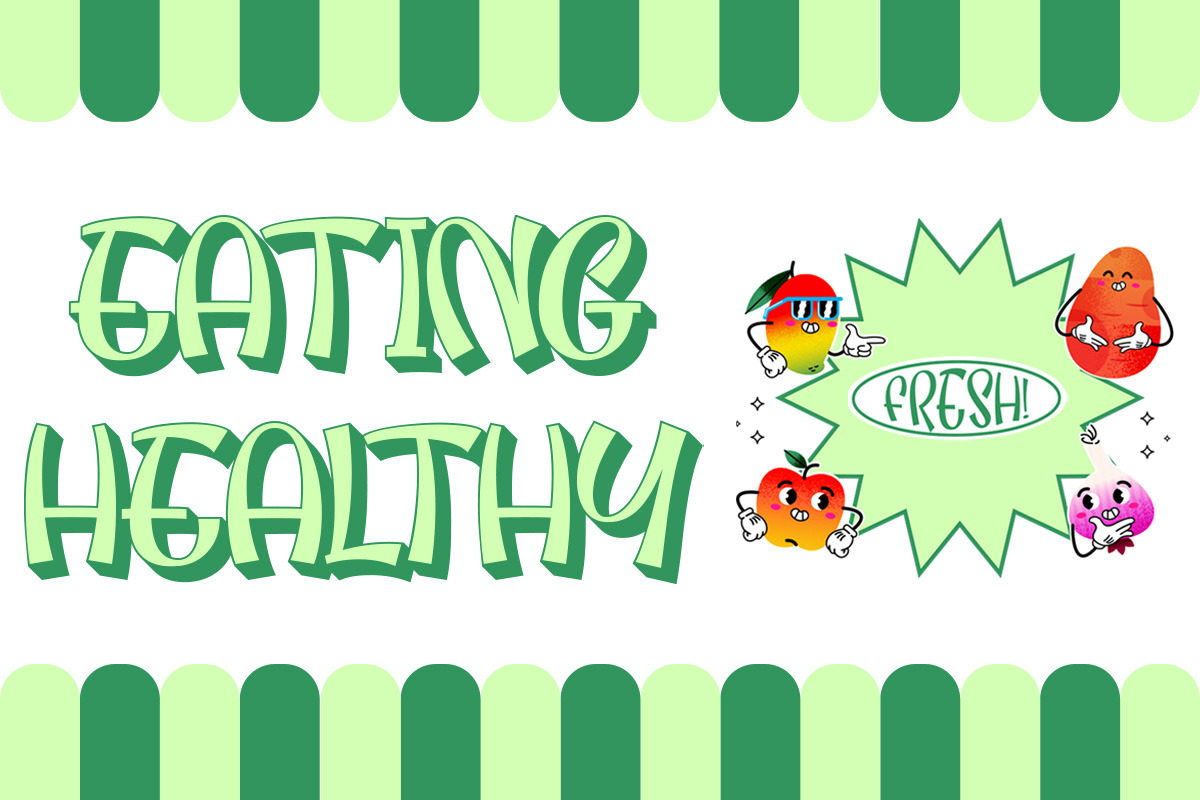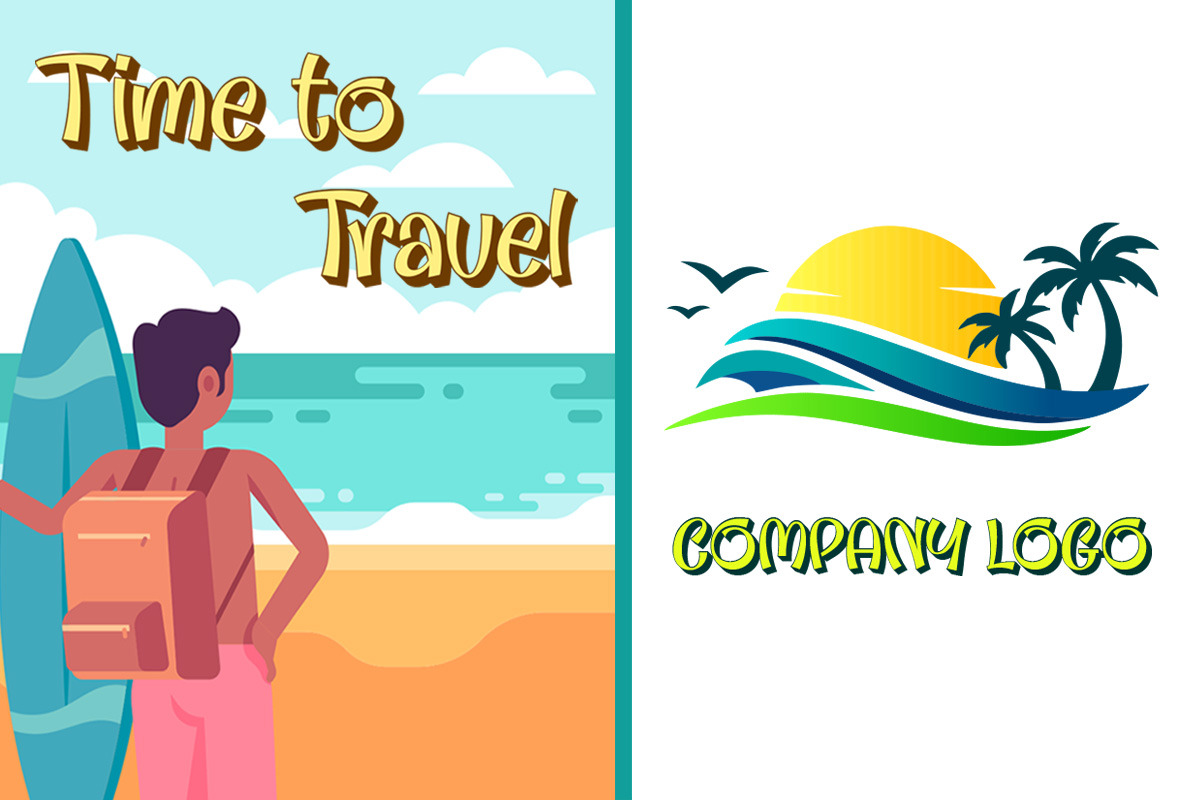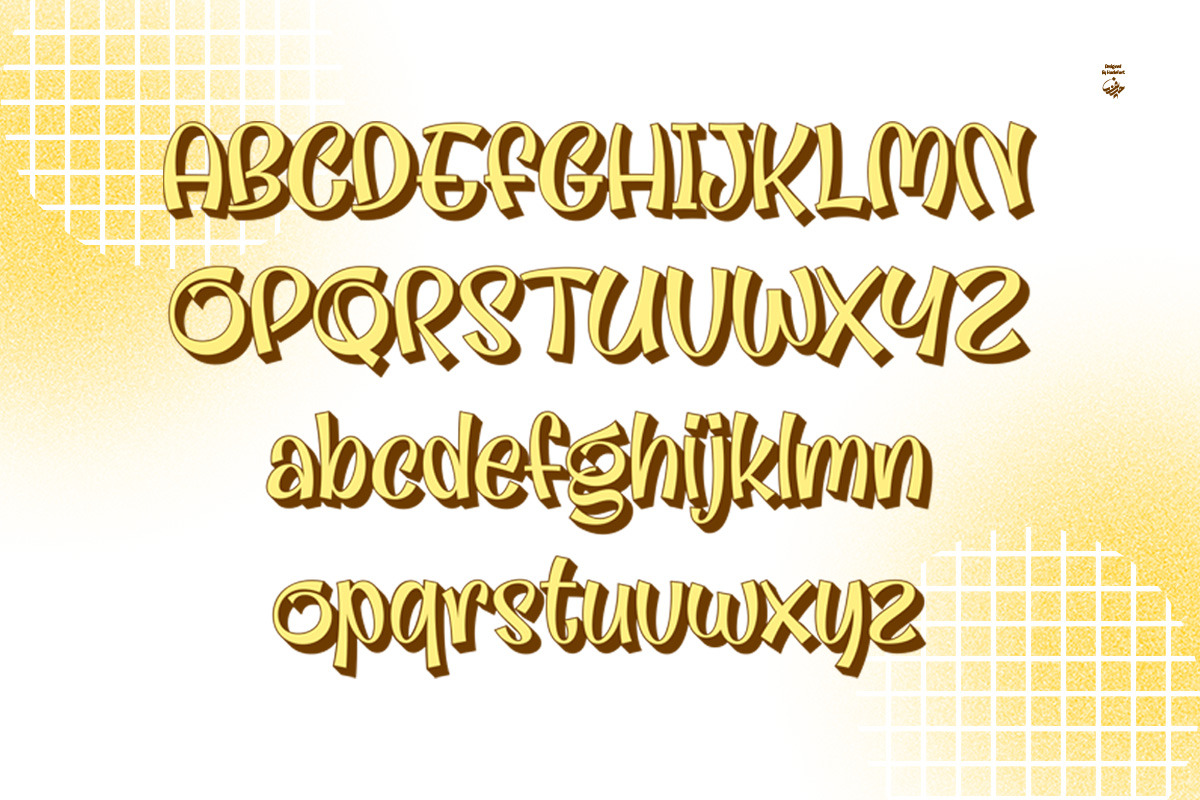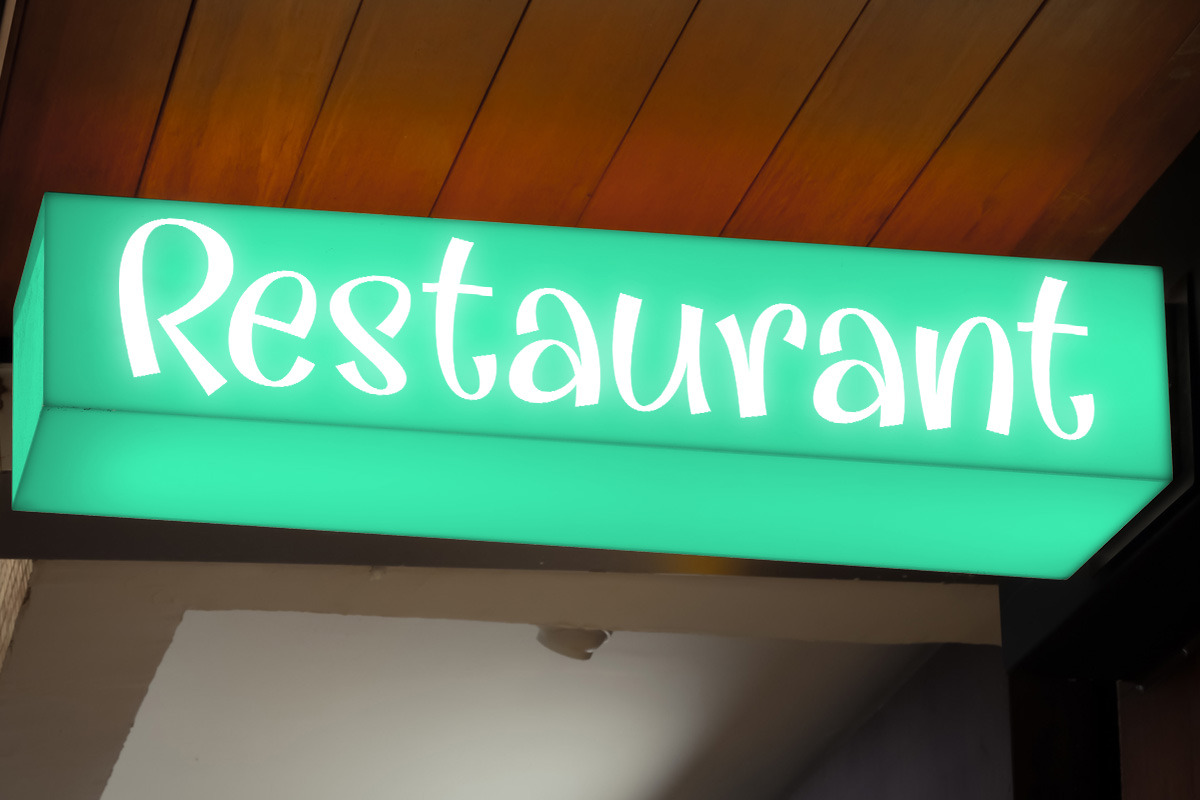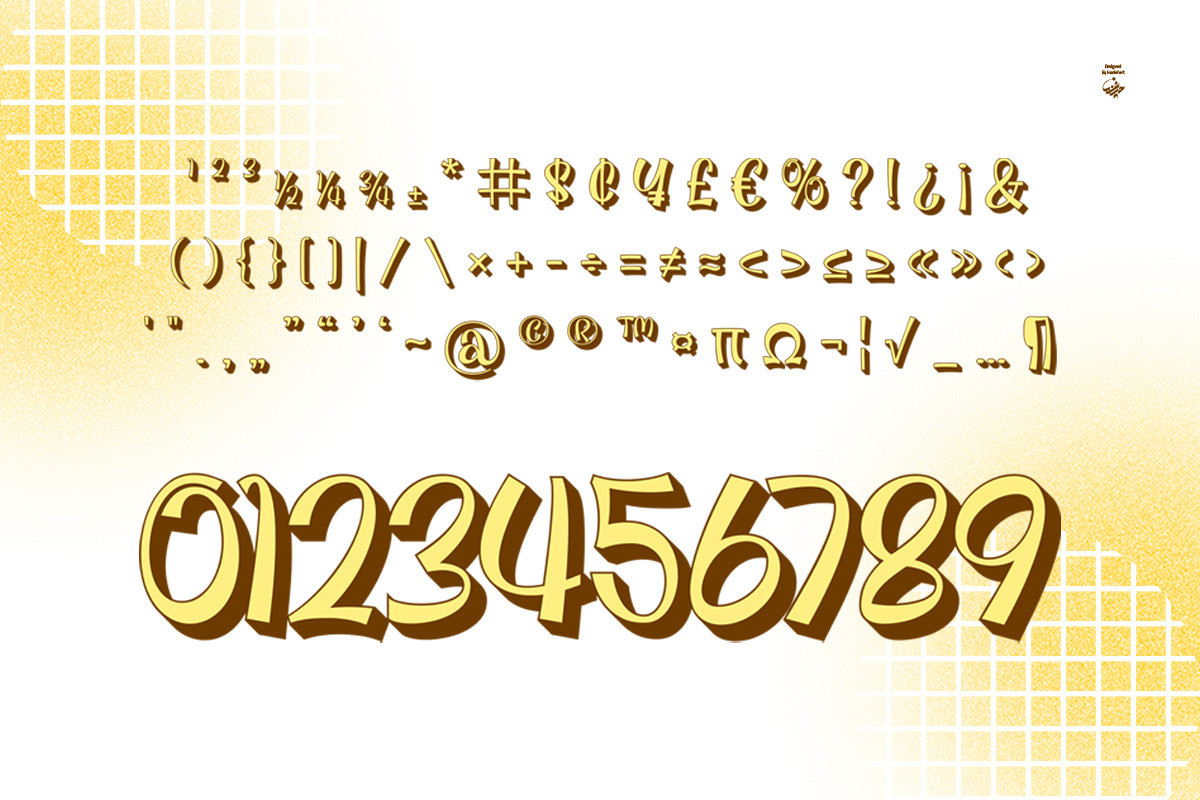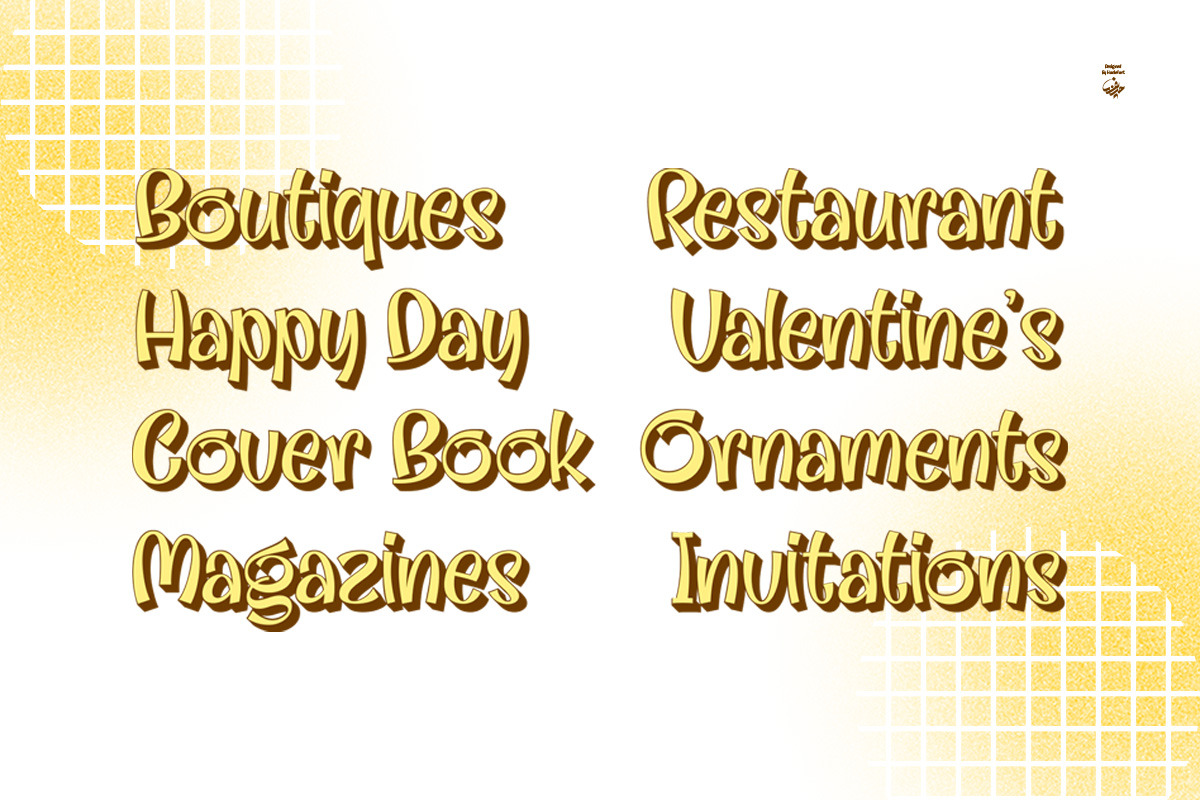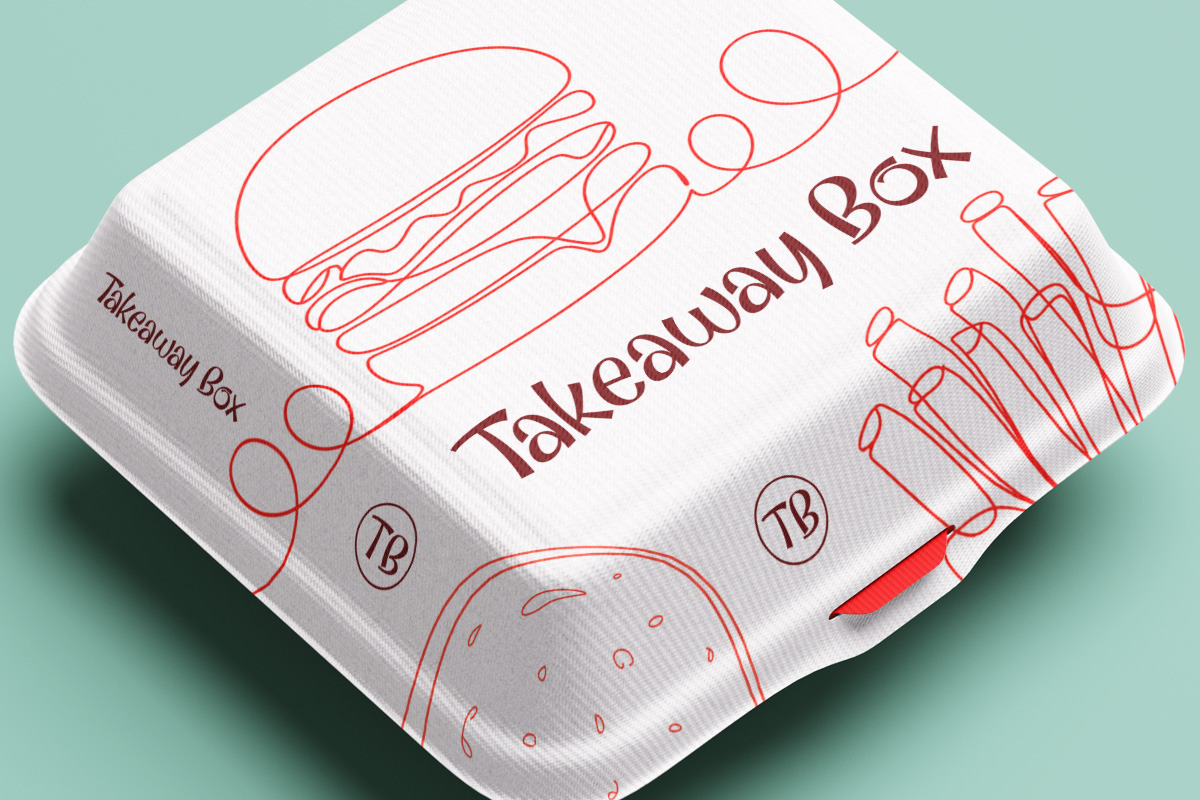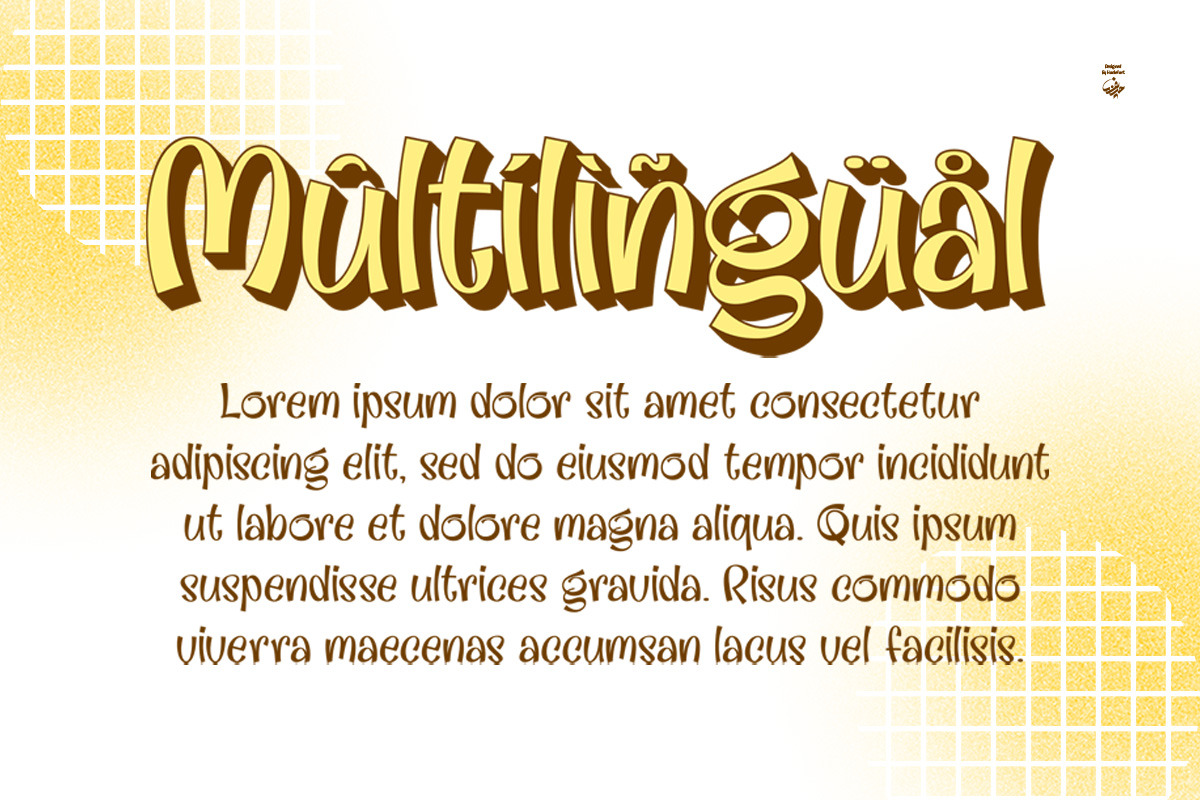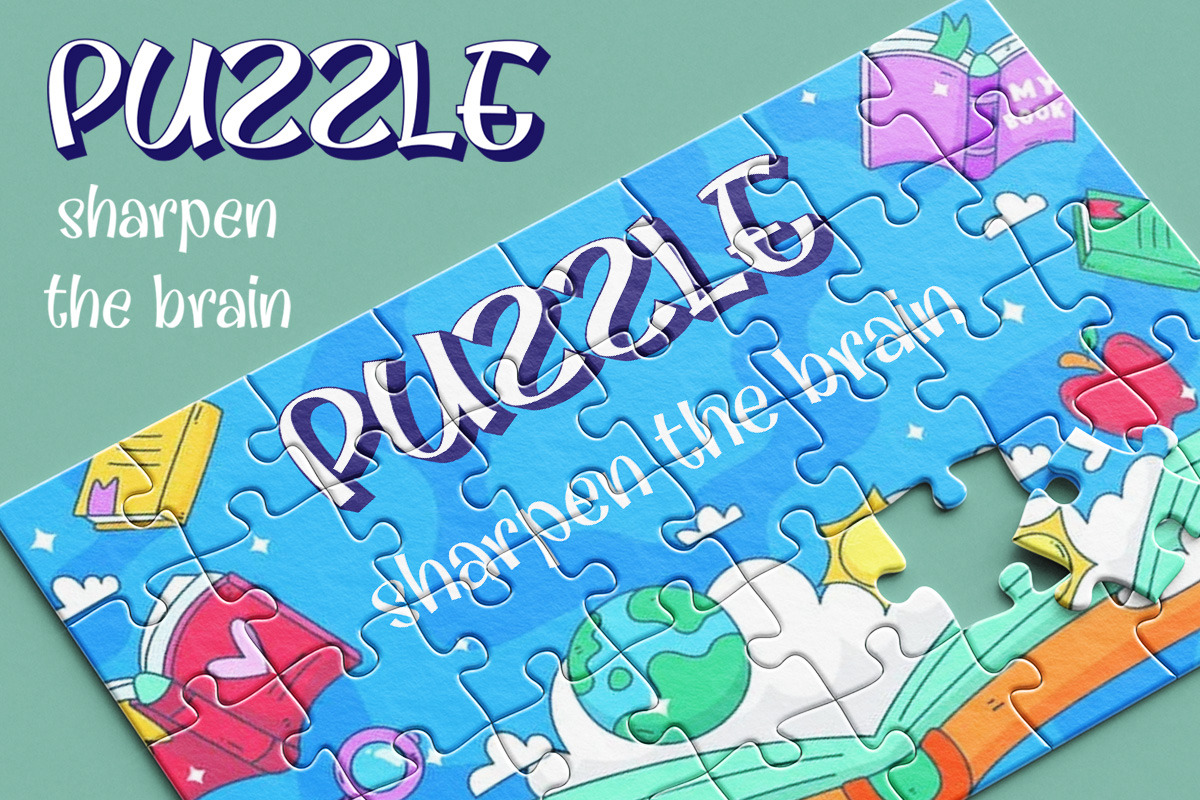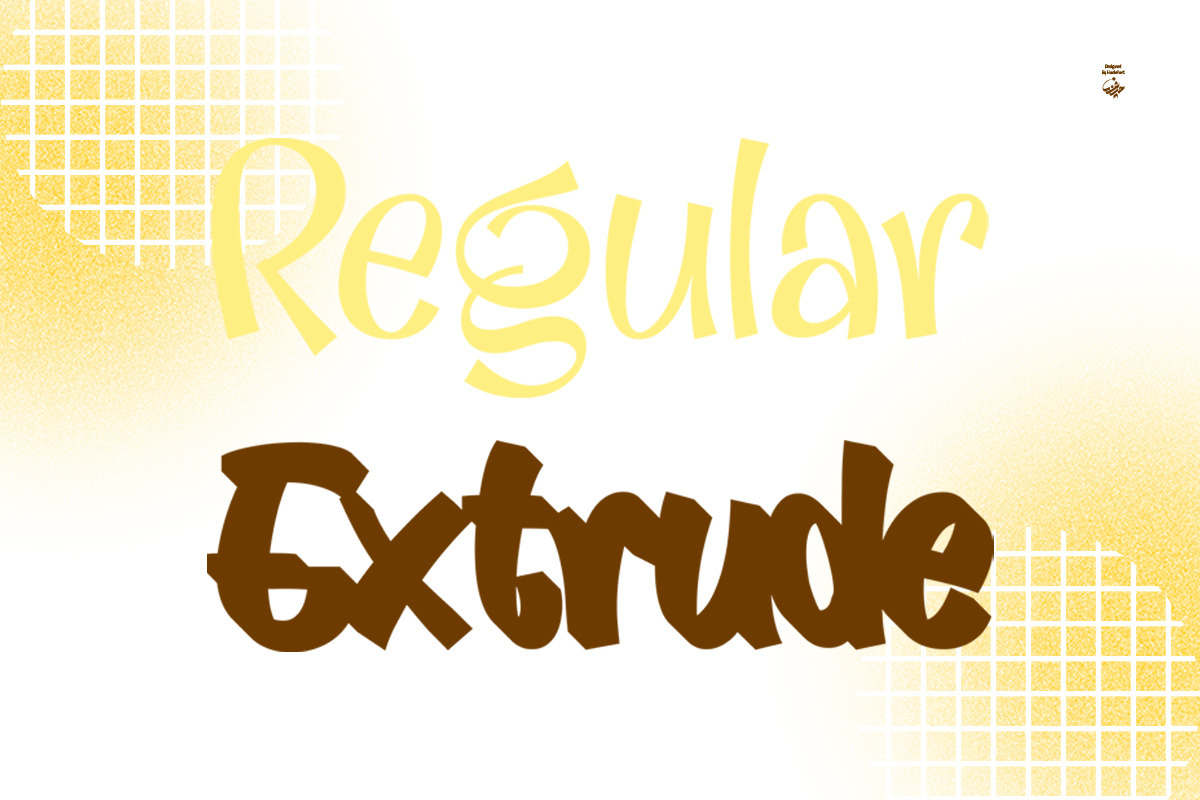
Festiga - Modern Display Extrude
Festiga's versatility shines across a variety of display contexts. It's a great choice for branding, exuding a cozy appeal on cafe menus or bakery packaging, and livening up artisan coffee labels. Furthermore, with its playful touch, it stands out in social media graphics, Instagram Stories, fun merchandise, and children's book titles. Festiga's key features include uppercase and lowercase letters, numbers and standard punctuation, and multilingual support. With Festiga by your side, every design you create will exude a modern and welcoming charm.